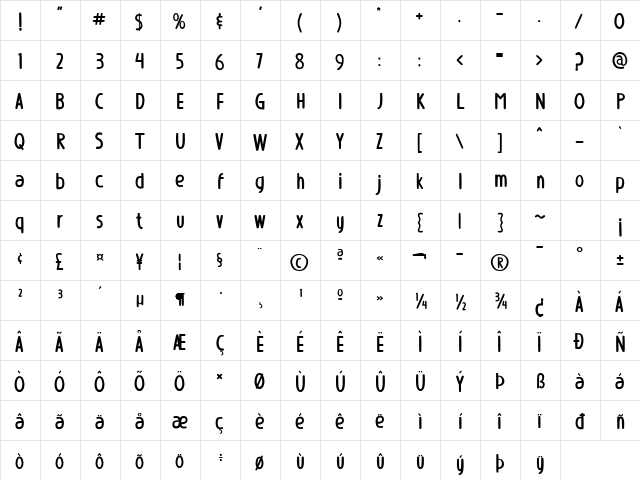
Cherry Caramel Regular
Design Context for Cherry Caramel Typeface
Cherry Caramel offers clean, dependable letterforms without strong stylistic allegiance, making it a practical choice for designers who need flexibility.
Pro Tip: Use Cherry Caramel in both headline and body roles to test its range before committing to a single application.